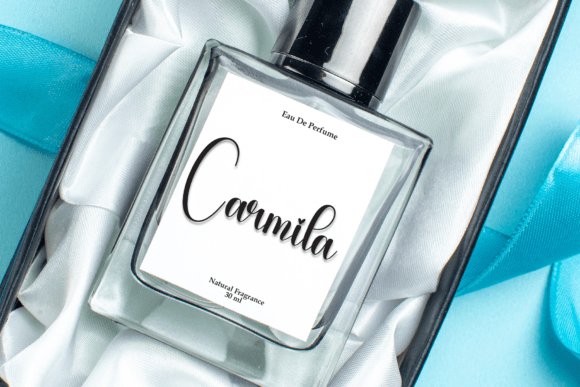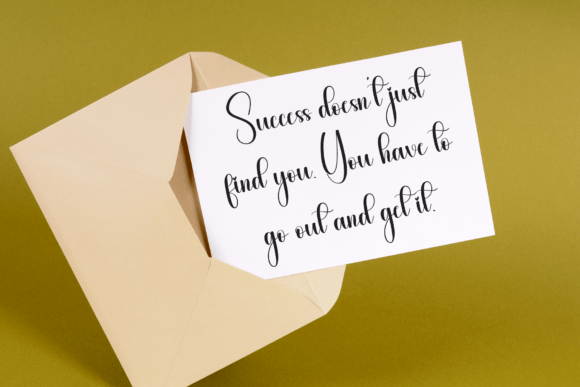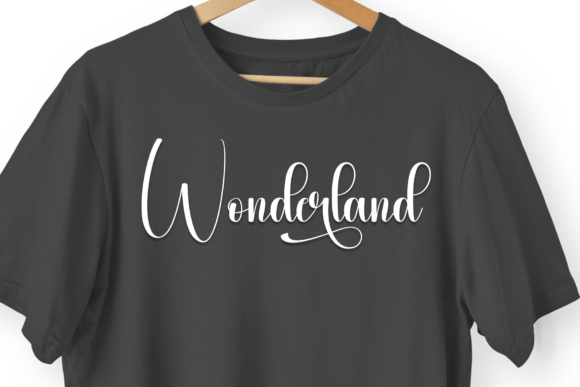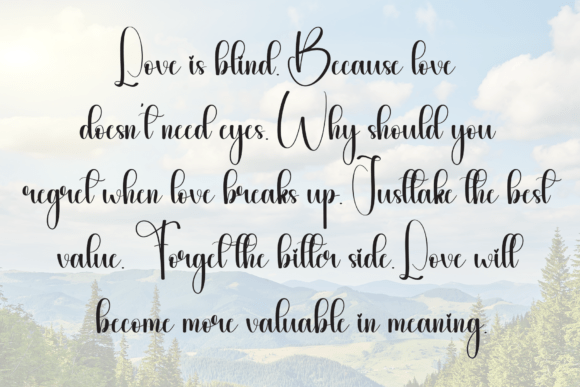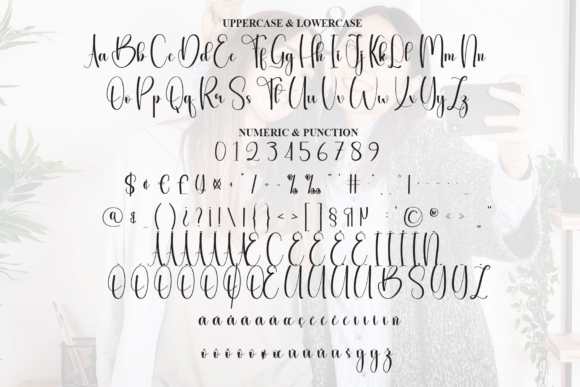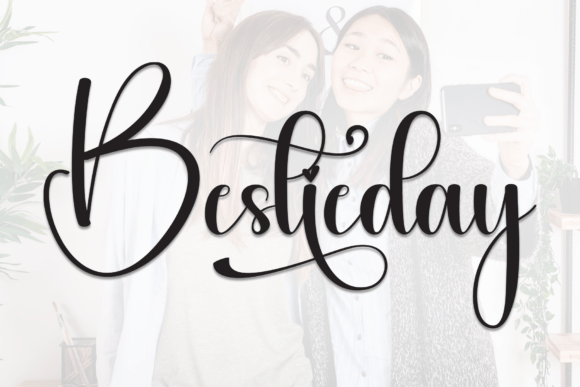
Introducing Bestieday Font: The Sweetest Handcrafted Display Font for Your Designs
Are you tired of using the same old fonts for your designs? Do you want to add a touch of warmth and personality to your creations? Look no further than Bestieday Font, a delightful, handcrafted display font that exudes sweetness and charm. With its unique blend of playfulness and elegance, this font is perfect for designers and crafters who want to create personalized and eye-catching designs.
The Story Behind Bestieday Font
Bestieday Font is more than just a font – it’s a feeling. It’s a sense of comfort and friendliness that is hard to find in today’s digital world. Our team of designers and typographers worked tirelessly to craft a font that would bring a smile to your face and warmth to your designs. With its charming handwritten touch, Bestieday Font is the perfect way to add a personal touch to your creations.
What Makes Bestieday Font So Special?
So, what sets Bestieday Font apart from other fonts? Here are just a few things that make it special:
• Handcrafted with love: Bestieday Font is a handcrafted font, carefully designed and refined to ensure that every letter and character is perfect.
• Unique and playful: With its charming handwritten touch, Bestieday Font adds a touch of playfulness and whimsy to any design.
• Elegant and sophisticated: Despite its playful nature, Bestieday Font is also elegant and sophisticated, making it perfect for a wide range of design applications.
• Perfect for personal designs: Whether you’re creating wedding invitations, birthday cards, or heartfelt notes, Bestieday Font is the perfect way to add a personal touch to your designs.
Uses for Bestieday Font
Bestieday Font is a versatile font that can be used for a wide range of design applications. Here are just a few ideas to get you started:
• Wedding invitations: Add a touch of romance and whimsy to your wedding invitations with Bestieday Font.
• Birthday cards: Create personalized and eye-catching birthday cards with Bestieday Font.
• Heartfelt notes: Add a touch of warmth and personality to your heartfelt notes and letters with Bestieday Font.
• Social media graphics: Use Bestieday Font to create eye-catching social media graphics that will make your followers smile.
Why Choose Bestieday Font?
So, why choose Bestieday Font for your designs? Here are just a few reasons:
• Stand out from the crowd: With its unique and playful design, Bestieday Font is sure to make your designs stand out from the crowd.
• Add a personal touch: Bestieday Font is the perfect way to add a personal touch to your designs and make them more meaningful.
• Easily readable: Despite its playful nature, Bestieday Font is easily readable, making it perfect for a wide range of design applications.
Get Ready to Fall in Love with Bestieday Font
In conclusion, Bestieday Font is a delightful, handcrafted display font that is perfect for designers and crafters who want to add a touch of warmth and personality to their creations. With its unique blend of playfulness and elegance, this font is sure to make your designs stand out from the crowd. So why wait? Discover the joy of designing with Bestieday Font and transform your designs into something fun and attractive!